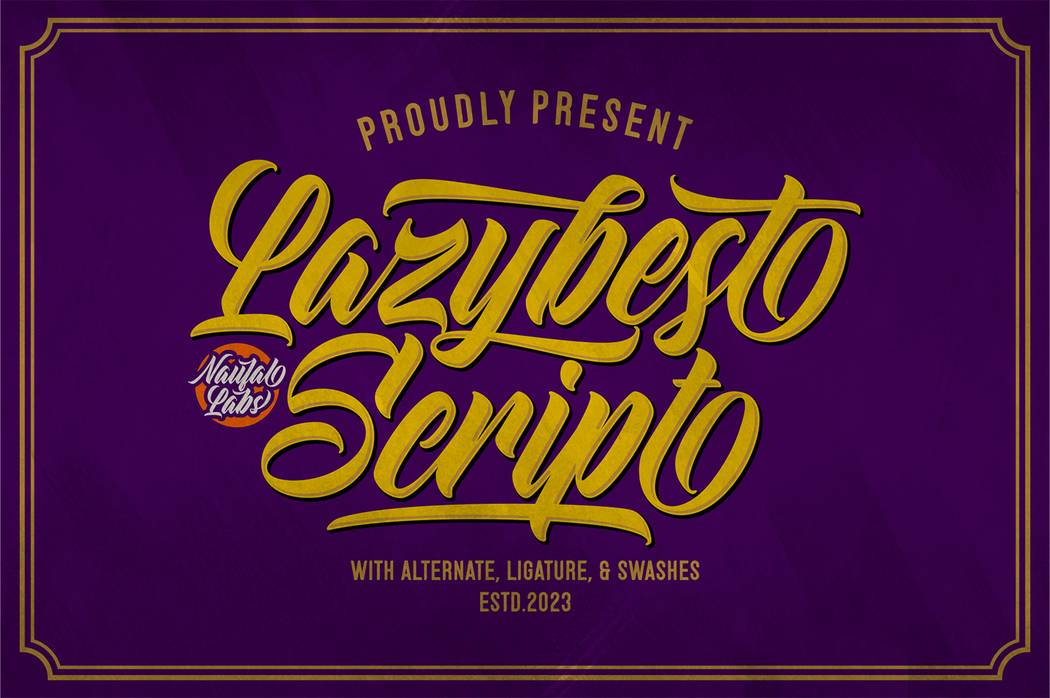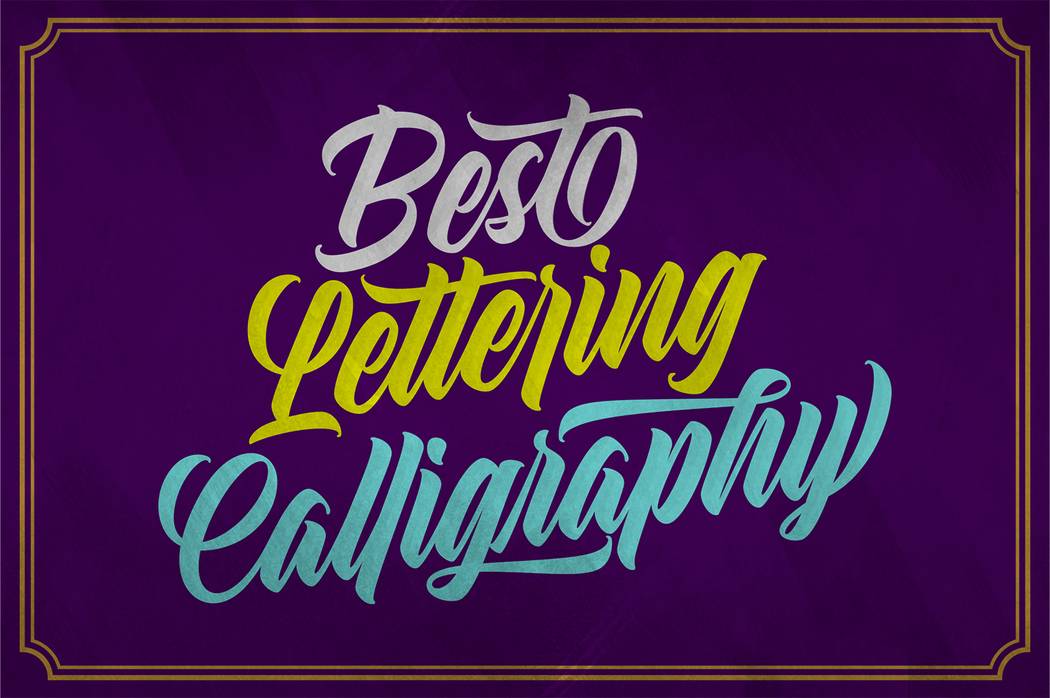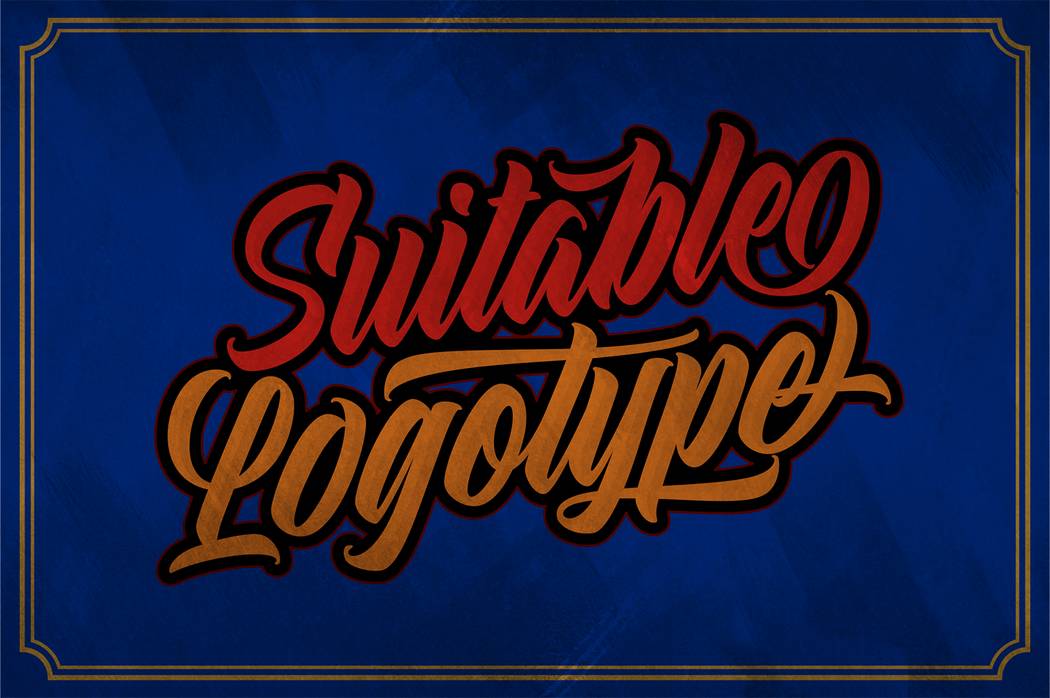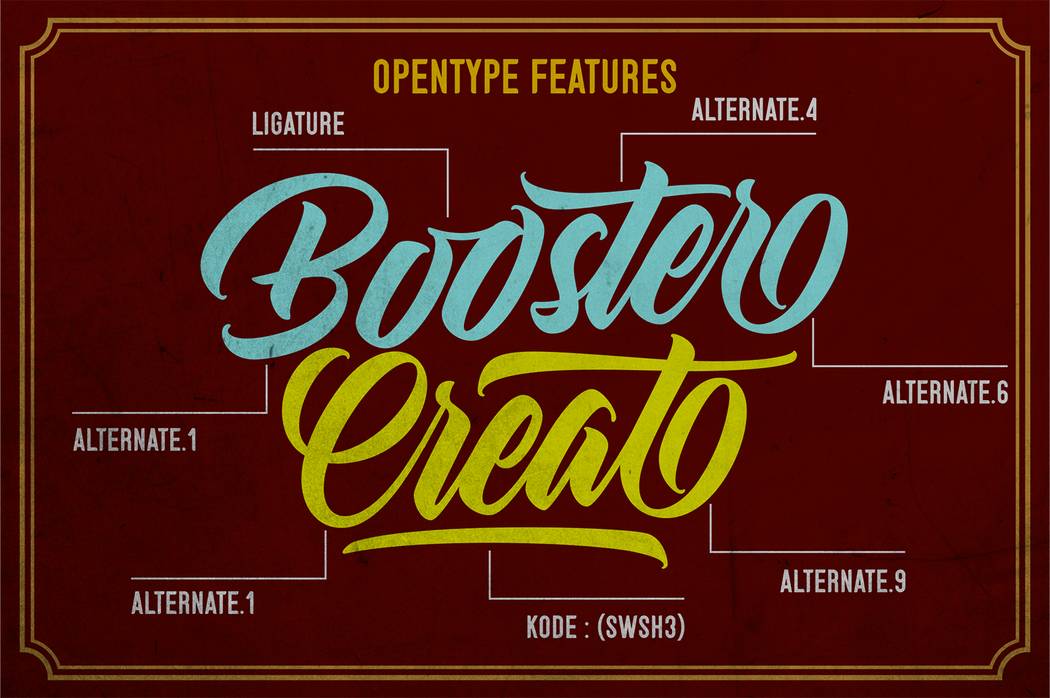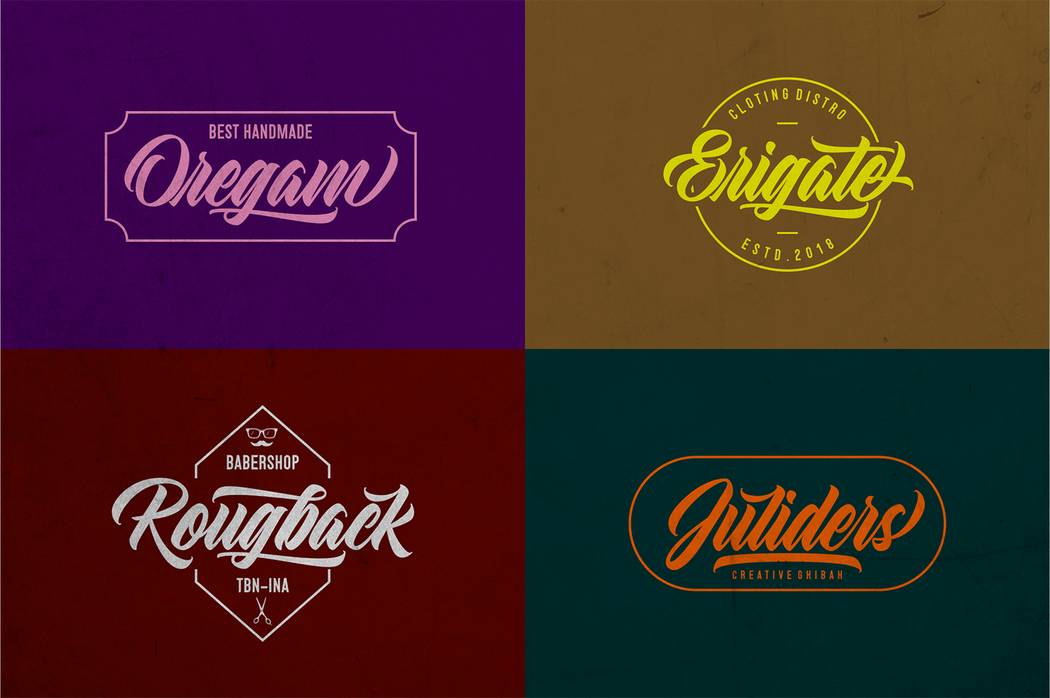
Lazybest Script Font is a bold and dynamic script typeface featuring fluid, connected letterforms with a playful yet confident personality. Its moderate contrast strokes and smooth, calligraphic style make it perfect for eye-catching headlines, branding, and creative designs that want to convey a sense of modern elegance with a lively touch. This font works especially well in logos, posters, and packaging where a stylish handwritten flair is desired.
Lazybest Script Font
About Lazybest Script Font
| Font family | Lazybest Script Font |
| Designer | MOH. MA'IN |